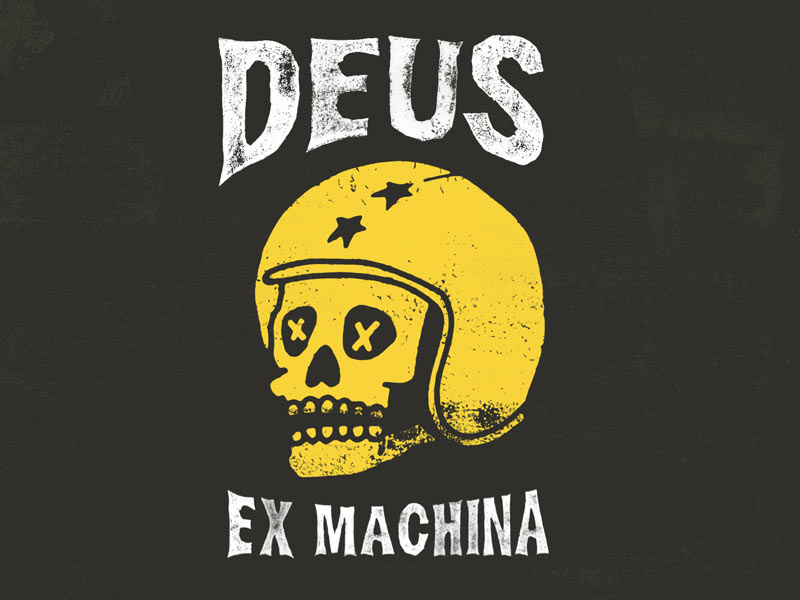
Higgs Boson Blues Handmade Font
Higgs Boson Blues is a handmade bold display type, in the tradition of American wood type. It comes in two font formats OpenType-SVG bitmap and standard vector font.
Every character has been hand carved onto lino and hand printed with waterbased ink. This gives the OpenType-SVG font an impressive amount of texture and detail. It gives it a weathered almost stamped like appearance.